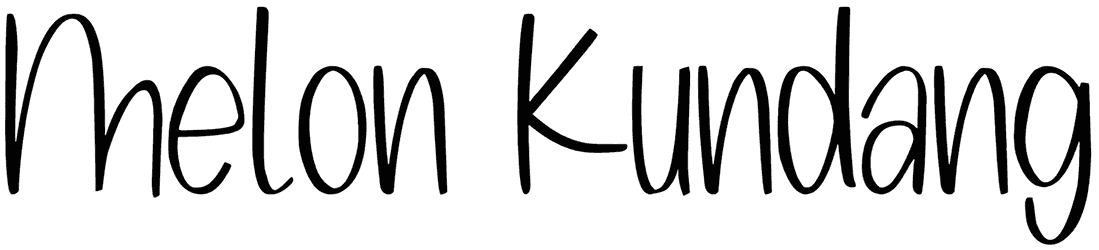
Melon Kundang Font
We have just added a new script font to our archive that comes with rounded letters and is officially known as Melon Kundang. This lovely artwork can reflect a sense of dynamic, delicacy, vivacity, and tenderness in all of your creative ideas, ranging from illustrations, storybook covers, stickers, and social media posts to gift cards.